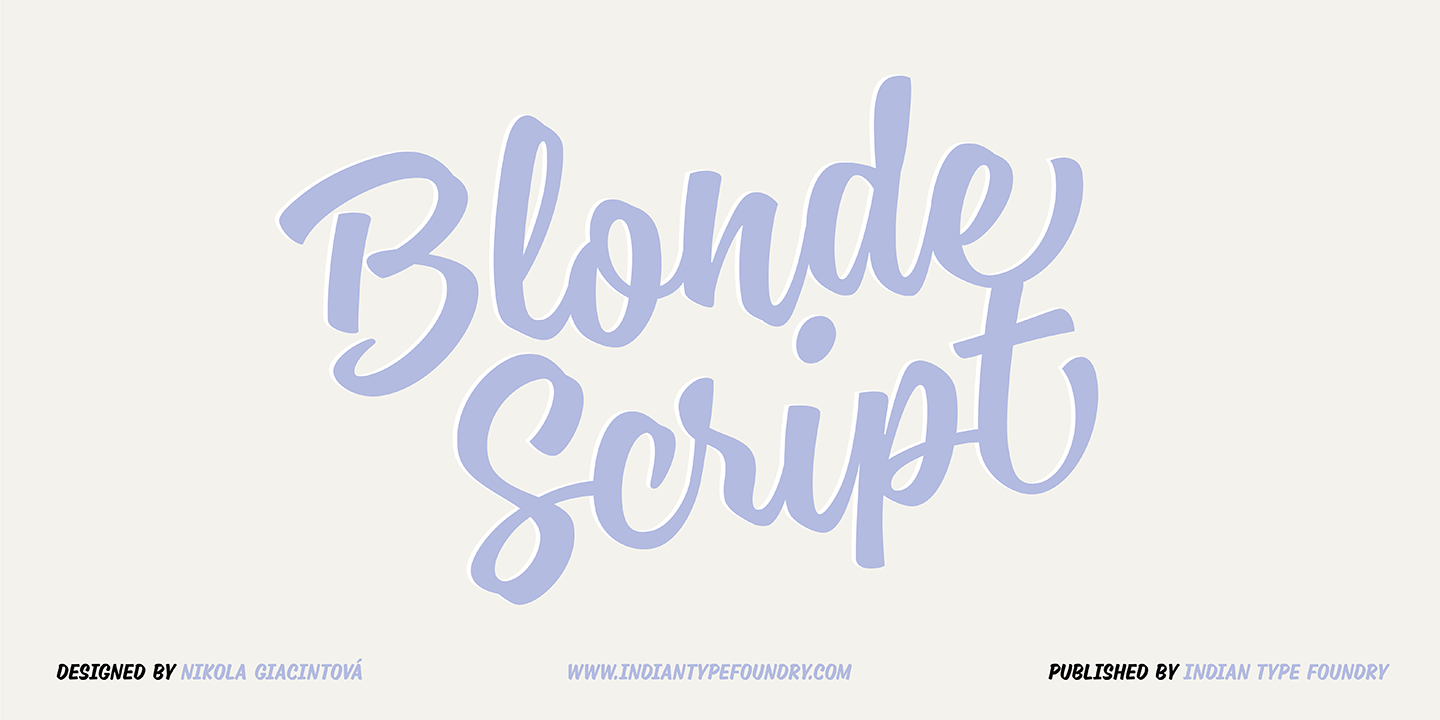
Blonde Script Font is ideal for elegant wedding invitations, luxury beauty branding, sophisticated feminine communications, premium salon marketing, chic fashion campaigns, graceful personal stationery, upscale cosmetics packaging, refined lifestyle magazines, romantic event materials, and stylish boutique applications. This graceful typeface creates authentic elegance atmosphere in both luxury print and digital beauty platforms.
What makes Blonde Script Font exciting is its exquisite embodiment of feminine sophistication with flowing script elegance and contemporary luxury appeal. The font features graceful letterforms with elegant curves and sophisticated character details that evoke golden locks, luminous beauty, and refined femininity. Its flowing design establishes an atmosphere of luxurious elegance and sophisticated charm that resonates with style-conscious audiences seeking authentic beauty and contemporary grace.
Blonde Script Font family includes elegant variations: Light, Regular, Medium, Bold, and Luxe versions, each with flowing alternates and sophisticated character sets. Each variant maintains the font's graceful personality while providing designers with elegant options for creating luxurious typography systems and beauty communication materials.
This exceptional elegant typeface brings authentic beauty credibility to projects requiring sophisticated presentation. Whether you're designing luxury beauty brands, elegant event materials, or sophisticated lifestyle content, Blonde Script Font Free Download delivers outstanding grace and beauty sophistication. The font's flowing proportions and elegant details ensure memorable luxury connection across various beauty applications.
Beauty brands and luxury lifestyle companies recognize how Blonde Script Font perfectly captures the essence of feminine elegance and sophisticated beauty. Its graceful foundation combined with luxury appeal makes it essential for beauty and lifestyle design projects. Download today and beautify your designs with this exceptionally elegant feminine typography.